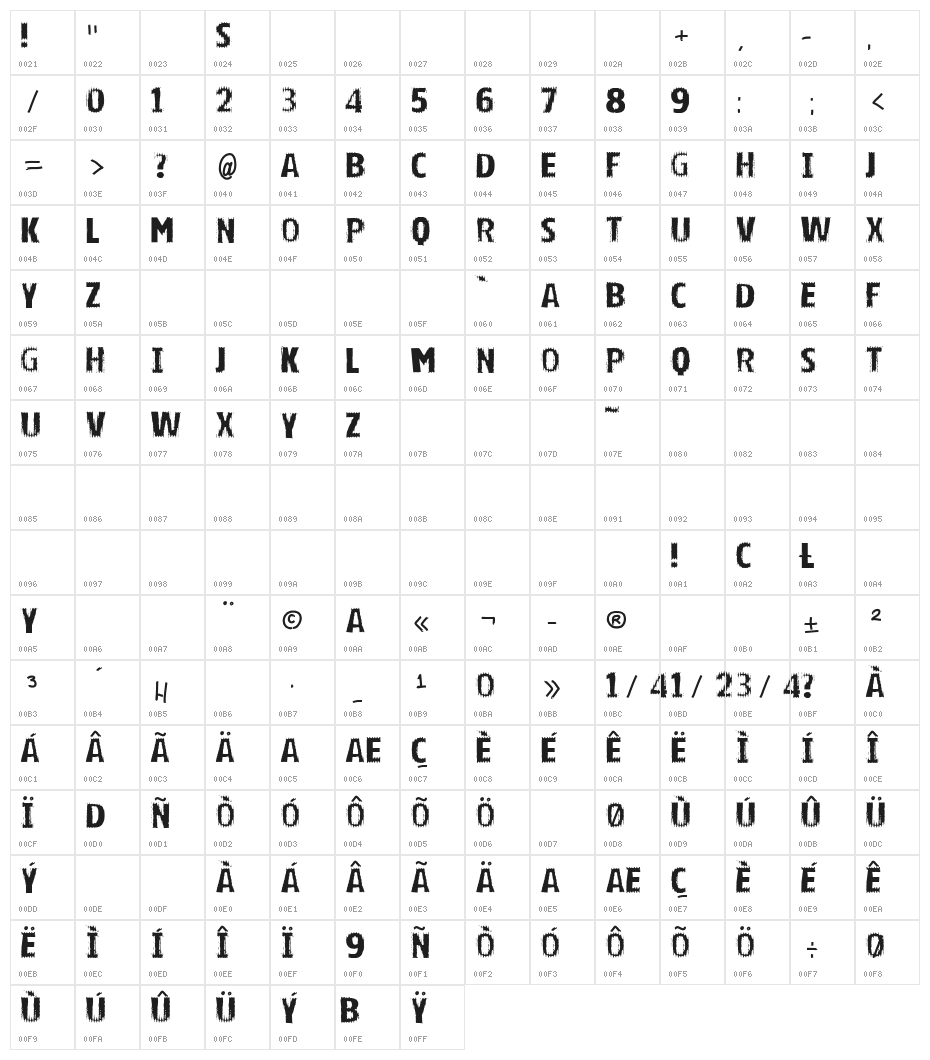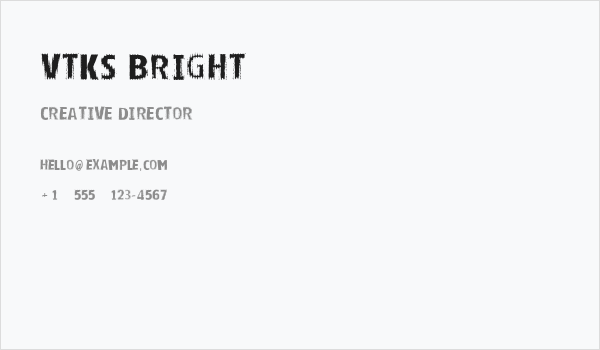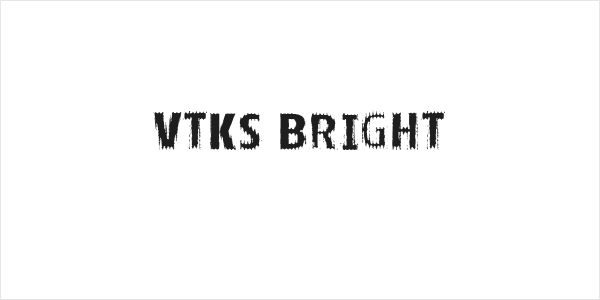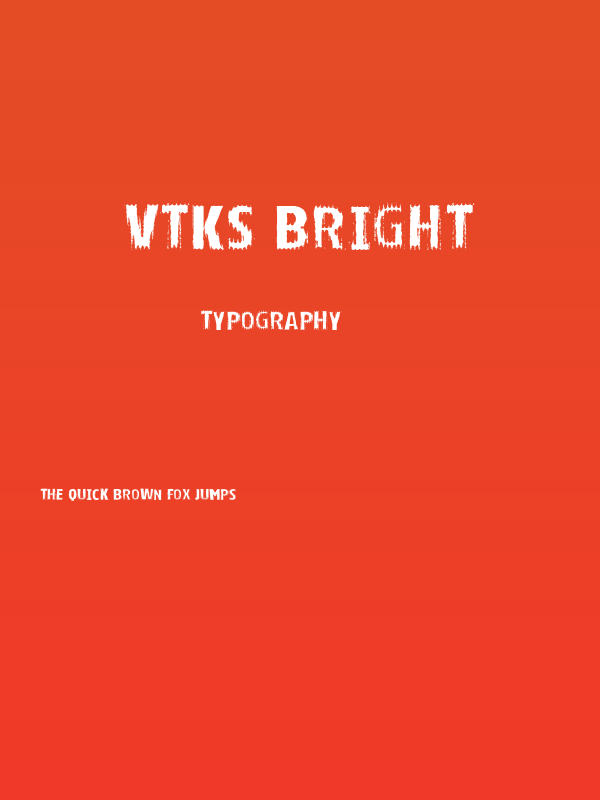
VTKS BRIGHT Font
VTKS BRIGHT Description
This font features a bold and distressed style, with a unique texture that gives the impression of being weathered or eroded. The characters are uppercase and lowercase, with numbers and a selection of special characters. The design is striking and attention-grabbing, making it ideal for projects that require a strong visual impact. The rough edges and irregularities in the letterforms add a sense of dynamism and energy, making it suitable for creative and edgy designs. The font's boldness ensures readability while maintaining its distinctive appearance.
| Proposed Projects | Ideal for posters, album covers, branding for edgy products, and any project needing a bold, distressed look. |